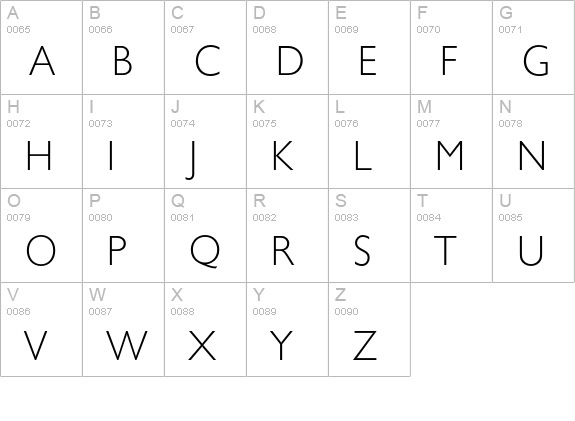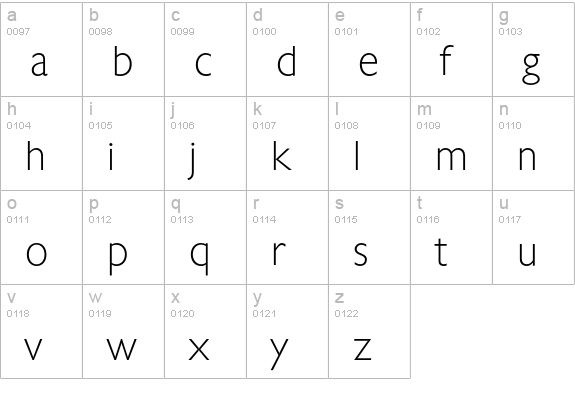
Chantilly-Xlight Font Details
Chantilly-Xlight font is a delicate and elegant typeface that exudes sophistication and charm. With its ultra-thin strokes and graceful curves, this font is perfect for adding a touch of refinement to any design project. Whether you're creating wedding invitations, branding materials, or editorial layouts, Chantilly-Xlight font will bring a sense of luxury and elegance to your work. And the best part? Chantilly-Xlight font is completely free to download at FontsMarket.com. So you can elevate your designs without breaking the bank. Don't miss out on the opportunity to add this stunning font to your collection today!